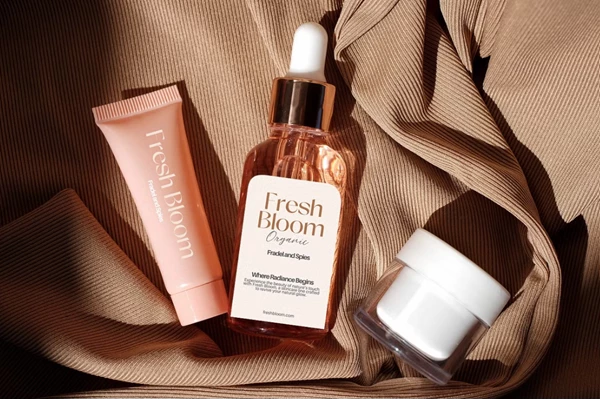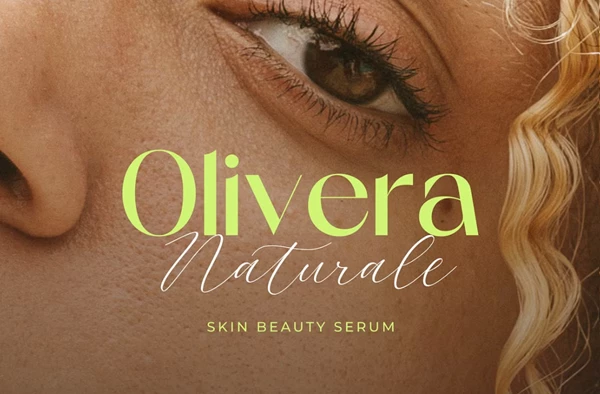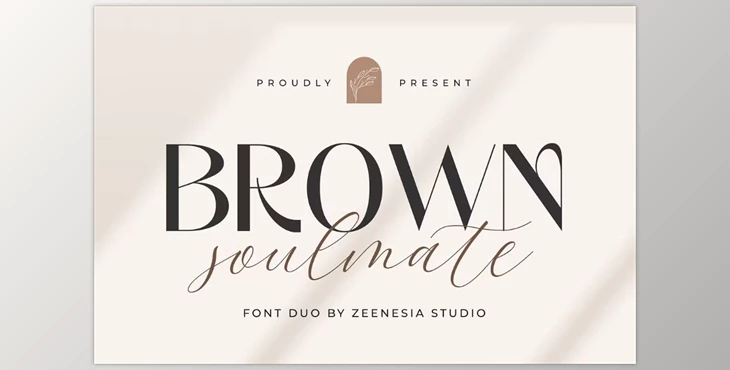
Brown Soulmate – A Charming Font Duo:
Explore the creative ease of Brown Soulmate – A Charming Font Duo, which features an ingenious blend between sans serif's chic simplicity and the script's ornate elegance. Designed to work together flawlessly, this duo is strikingly balanced between fresh modern design devoid of flourishes and the gentle charm radiating from hand-lettered forms.
Offering remarkable versatility suitable for works like branding marks, social media engagements, wedding invitations, and even product labels, Brown Soulmate serves any design need, adding a touch of sophistication and distinctiveness. The sans serif part conveys boldness coupled with timeless grace, while the script adds refined, fanciful romance.
Beyond a mere typeface, Brown Soulmate is your perfect artistic partner, enabling you to create projects that are emotion-rich and captivating in design.
Some great features of Brown Soulmate – A Charming Font Duo:
- Standard glyphs & Stylistic Alternates
- Multilingual support